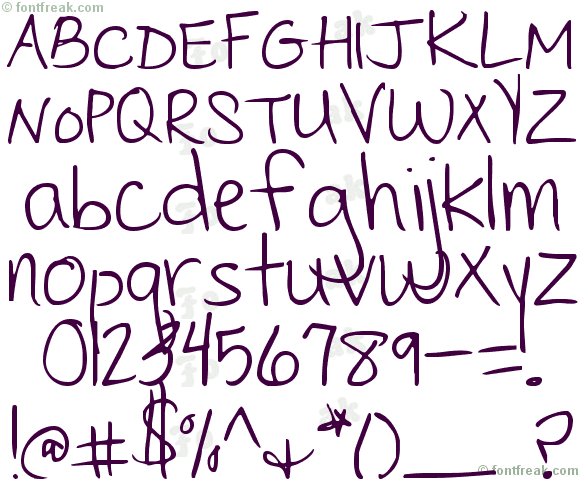
Cedarville Pnkfun 1 Print is a delightful handwritten font designed by Kimberly Geswein. This font falls into the category of script typefaces, characterized by its playful and casual style. The strokes are moderately thick, creating a friendly and inviting appearance while maintaining a consistent weight throughout. The letters are spaced closely, enhancing the font's informal charm, making it ideal for projects that require a personal touch. Its distinctive design features rounded edges and slight imperfections, reminiscent of natural handwriting, which adds to its authenticity.
This font is particularly well-suited for a variety of creative applications. It shines in wedding invitations, where its whimsical nature can set a joyful tone for the occasion. Additionally, Cedarville Pnkfun 1 Print is a great choice for children's book covers, offering a playful look that appeals to young readers. It can also enhance restaurant menus, especially for casual dining establishments, giving an approachable vibe that invites customers to explore the offerings. Content creators will find this font useful for social media graphics, as its unique style can help capture attention and convey a sense of personality.
Targeting graphic designers, small business owners, and content creators, Cedarville Pnkfun 1 Print font free download is an accessible resource that can elevate various projects. Its versatility allows it to be used in both digital and print formats, making it a valuable addition to any creative toolkit. What truly sets this font apart is its ability to evoke warmth and friendliness, making it a perfect choice for anyone looking to add a personal touch to their designs. Cedarville Pnkfun 1 Print stands out for its blend of playfulness and legibility, ensuring that your message is both engaging and easy to read.